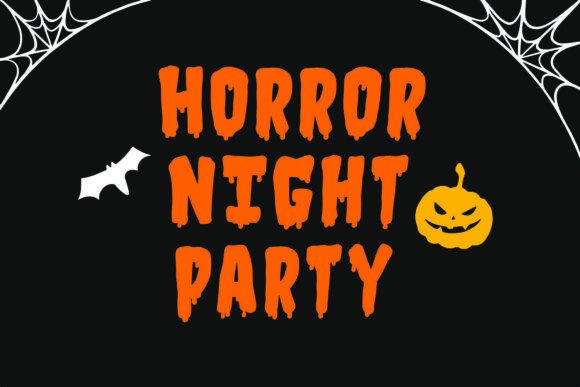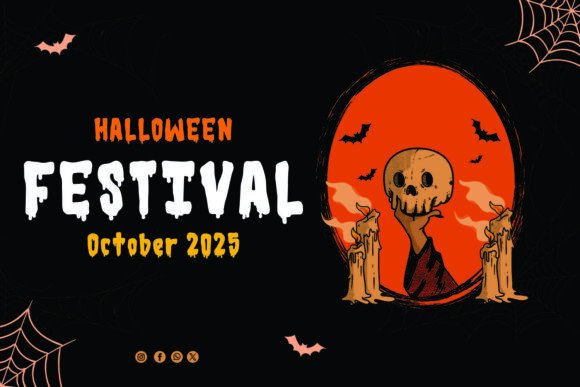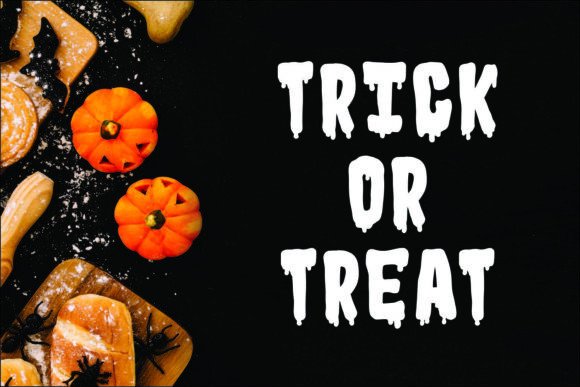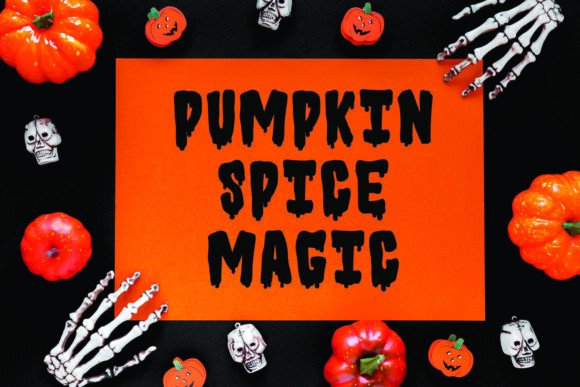
Happy Halloween Day Font: The Ultimate Choice for Spooky Creations
Are you looking for a font that captures the essence of Halloween? Look no further than the Happy Halloween Day font. This spooky display font is designed to add a creepy yet playful vibe to your Halloween-themed creations. With its jagged edges, eerie curves, and haunting texture, Happy Halloween Day embodies the thrill of midnight chills, haunted houses, and ghostly shadows.
The Perfect Font for Halloween Creations
Happy Halloween Day is more than just a font – it’s an experience. Its unsettling yet stylish form makes it especially fitting for Cricut designs, SVG projects, t-shirts, and eerie decorations. Whether you’re designing for a trick-or-treat event, crafting horror-themed artwork, or setting the stage for a chilling story, this font will bring your ideas to life with a sinister twist.
One of the best things about Happy Halloween Day is its versatility. It works seamlessly across various design projects, including:
- Invitations: Create spooky invitations for Halloween parties or trick-or-treat events.
- Party Flyers: Design eye-catching flyers for Halloween-themed parties or events.
- Posters: Create haunting posters for horror movies or Halloween-themed events.
- DIY Crafts: Add a creepy touch to your DIY crafts, such as Halloween decorations or gift tags.
Why Choose Happy Halloween Day?
So, why choose Happy Halloween Day over other fonts? Here are a few reasons:
- Unique Design: Happy Halloween Day has a unique design that captures the essence of Halloween.
- High-Quality: The font is crafted with high-quality strokes and curves, making it perfect for printing and digital use.
- Easy to Use: Happy Halloween Day is easy to use and works seamlessly with popular design software.
- Versatile: The font is versatile and can be used across various design projects.
Tips for Using Happy Halloween Day
Here are a few tips for using Happy Halloween Day:
- Experiment with Colors: Experiment with different colors to create a unique and haunting effect.
- Mix and Match: Mix and match Happy Halloween Day with other fonts to create a unique and eye-catching design.
- Add Texture: Add texture to your design to give it a more haunting and eerie feel.
- Play with Sizes: Play with different font sizes to create a more dramatic effect.
In conclusion, Happy Halloween Day is the ultimate font for designers and crafters looking to add a spooky touch to their Halloween-themed creations. With its unique design, high-quality strokes, and versatility, this font is perfect for a wide range of design projects. So, dare to embrace the fright and fun of the season with Happy Halloween Day – the ultimate font to make your spooky projects unforgettable.